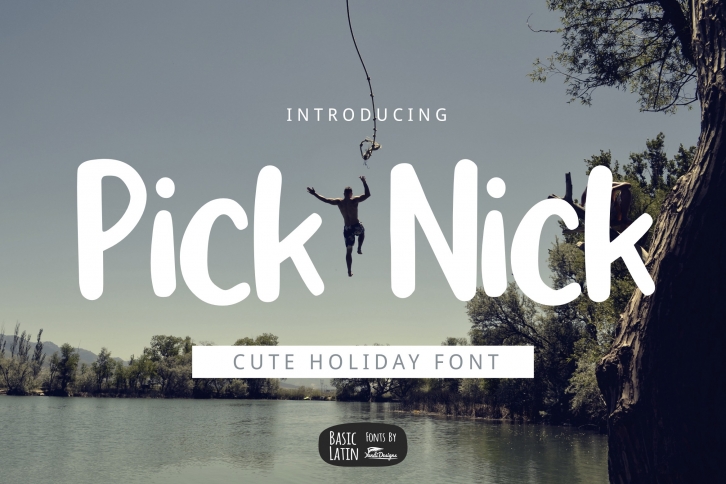
Pick Nick Holiday Font Download
Pick Nick Holiday is a gorgeous font that was realeased on October 16, 2019. The font can be used in many style contexts and design environments. Perfect for invitations, magazines, websites, logos, and more! It was designed by YandiDesigns and the file size is 2.21 MB. Thanks for checking out this font!